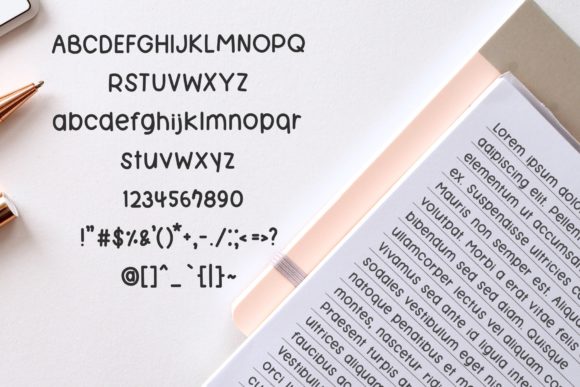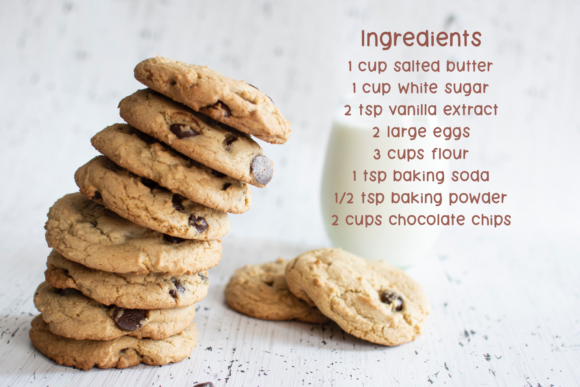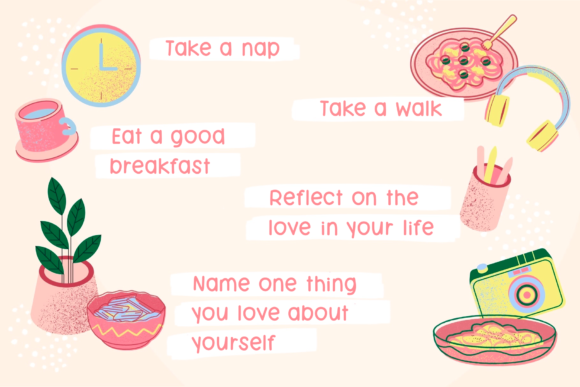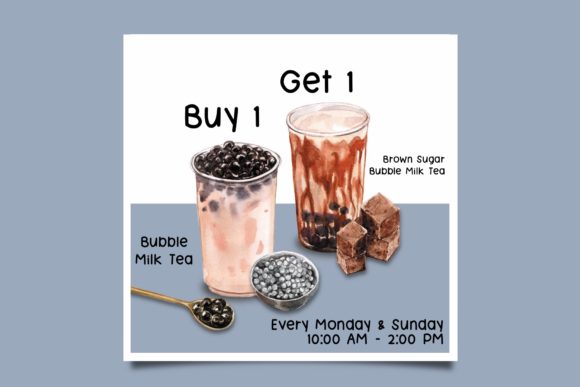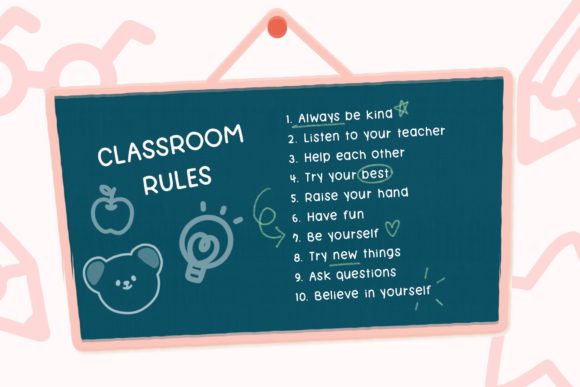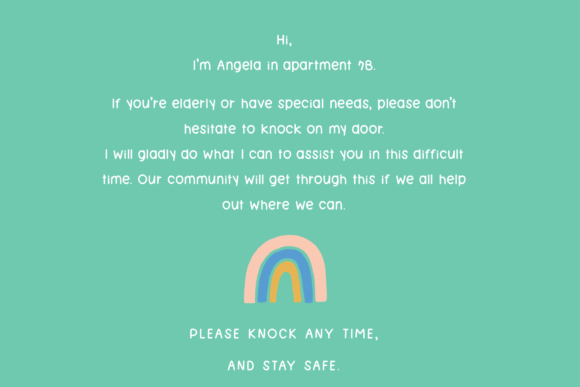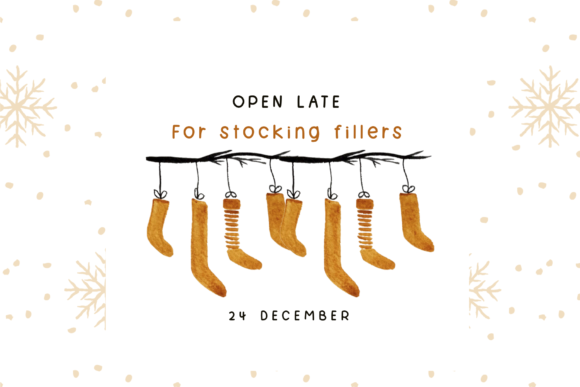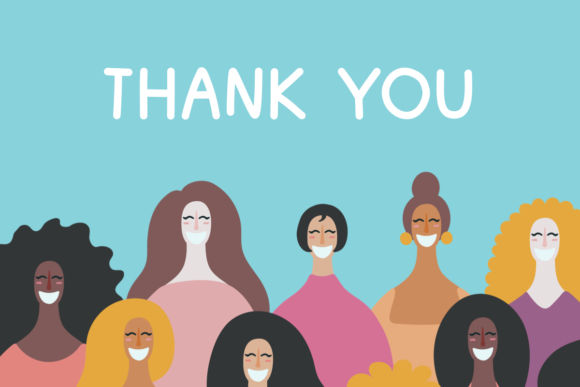
Short Note Font
About Short Note Font
Short Note is a simple and round-lettered handwritten font. You can use this font in various projects, blog posts, logos, invitations, greeting cards, planners, photo albums, decorations and much more.